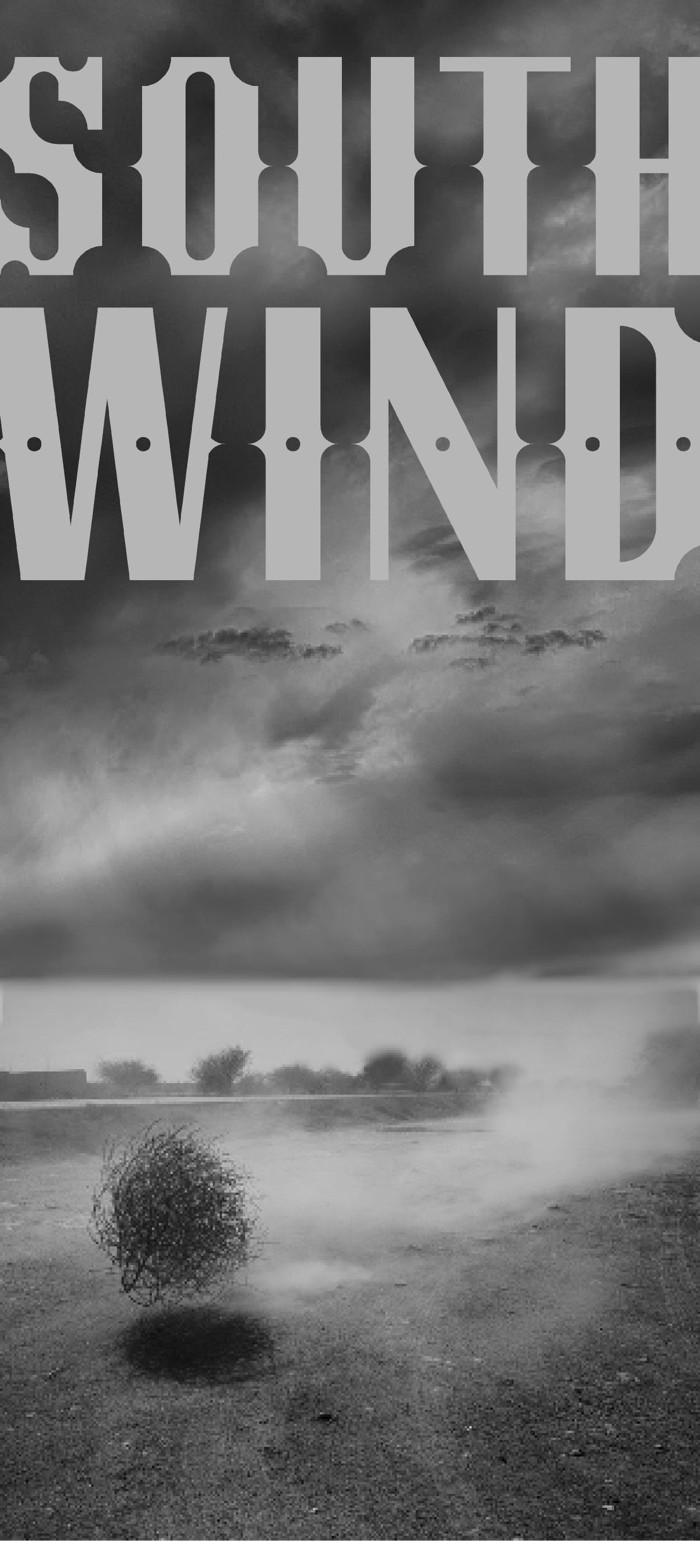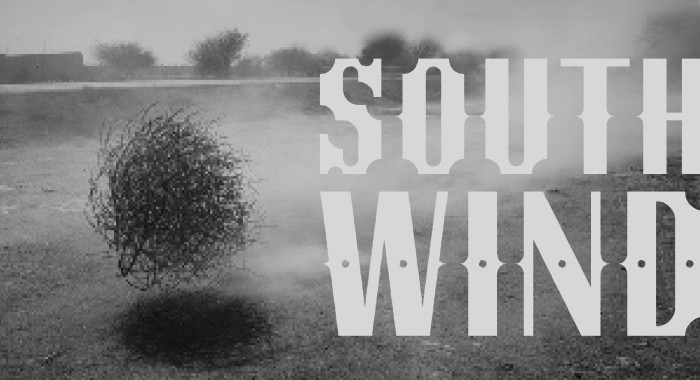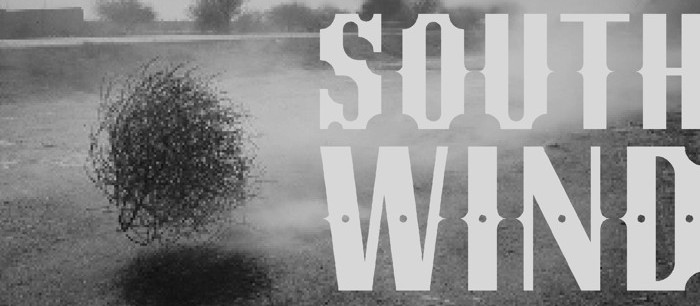
All comes from this great poster...
I like it a lot. Looks like someone has been taking potshots at the U/C
Amazing samples!!! 10/10.
This is a very nice western type. You can hear the clinking of glasses filled with whiskey and Scotch…
Giddyap! Love it! 10/10+fav